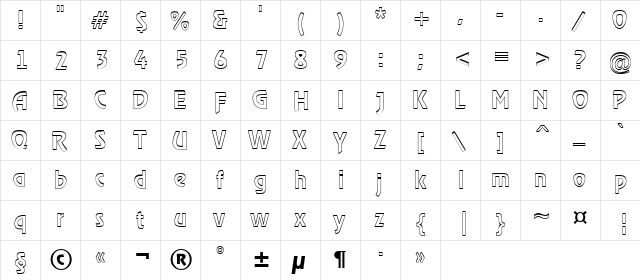
a_RewinderDemiSh Regular Font Preview
a_RewinderDemiSh Regular
Design Context for a_RewinderDemiSh Typeface
a_RewinderDemiSh is a composed and adaptable typeface that performs quietly and consistently across a wide range of design contexts.